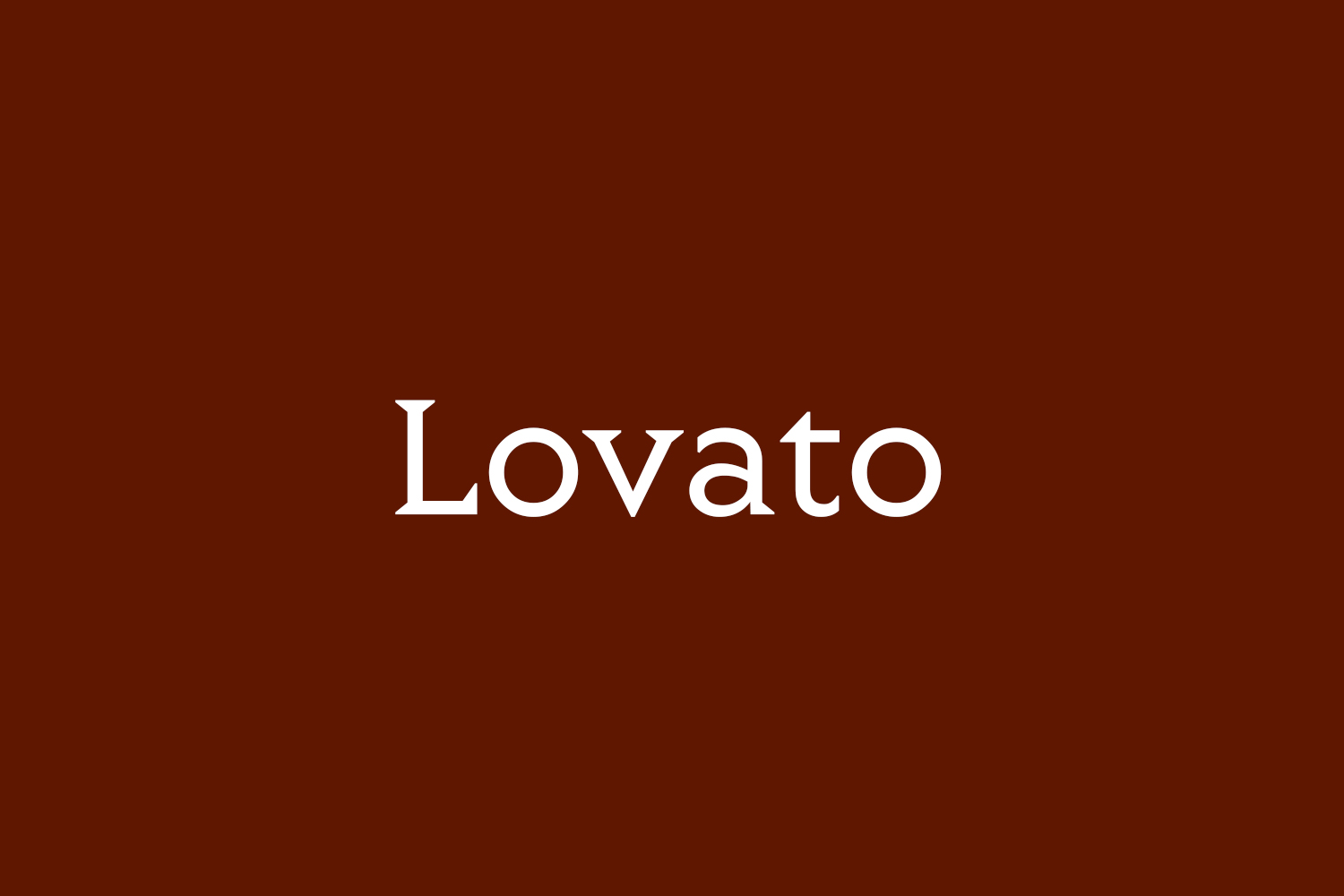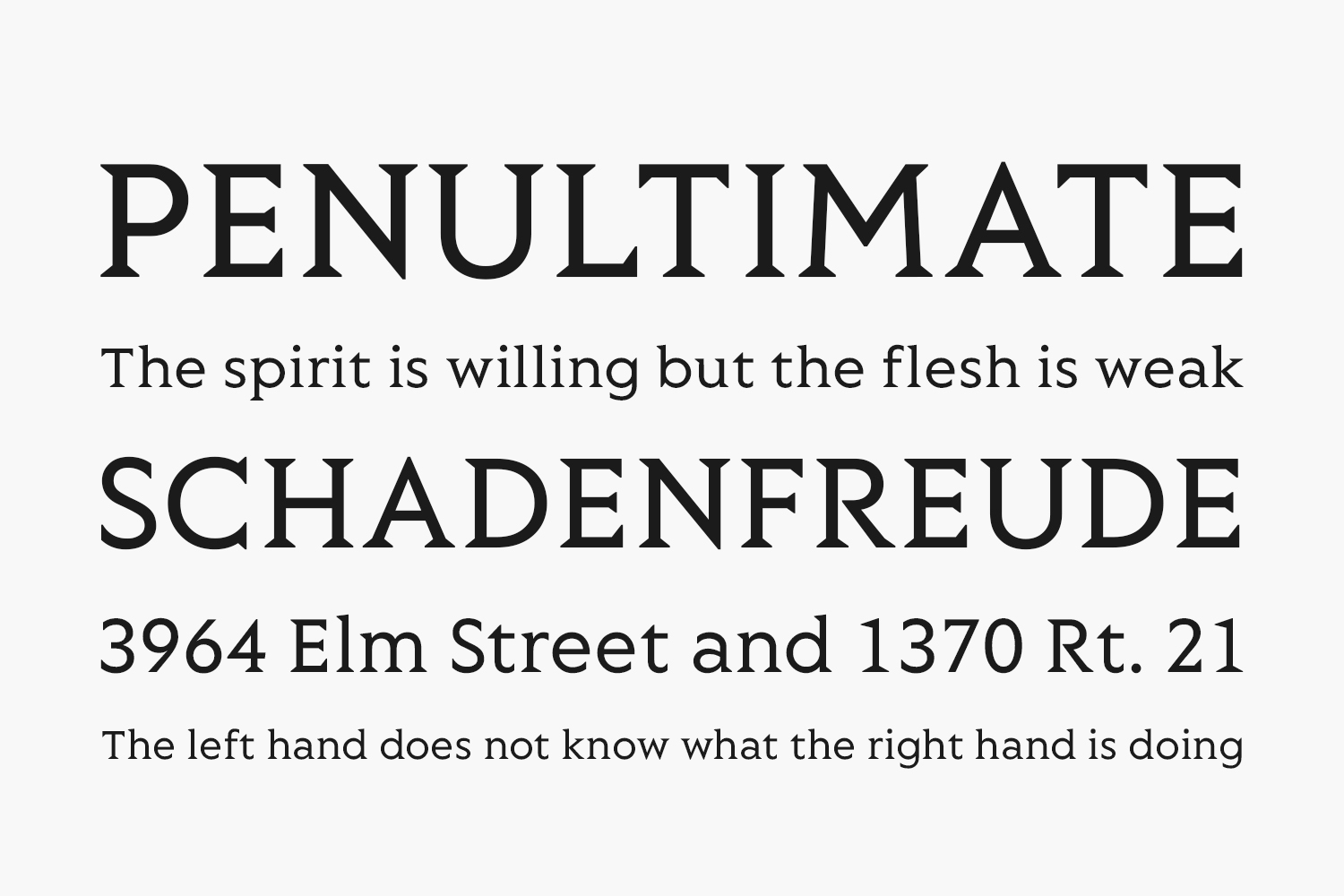
Lovato Free Font Family is a family of five fonts, perfect for branding applications, books, or poster designs that require a clear, sharp, stylish tone. The styles range from an elegant, delicate light weight up to a brazen, commanding black weight. This original Latin-serif family, designed by Kosal Sen, has primarily a geometric construction, with hints of details inspired by inscriptional lettering, all coalescing to fit a contemporary palette.
Designed by Philatype